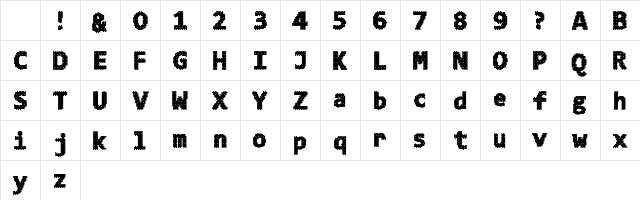
4K&A Regular
Foundry: hertoy
Designer: hertoy
Design Context for 4K&A
4K&A is a composed and adaptable typeface that performs quietly and consistently across a wide range of design contexts.